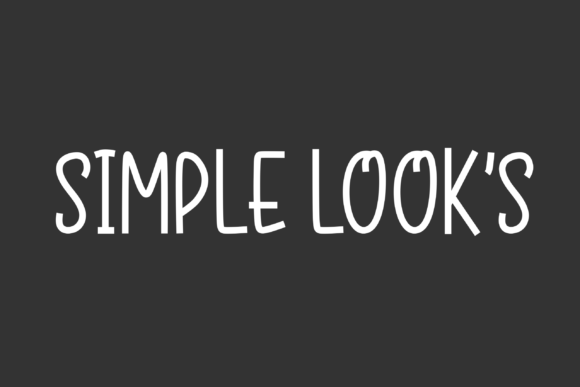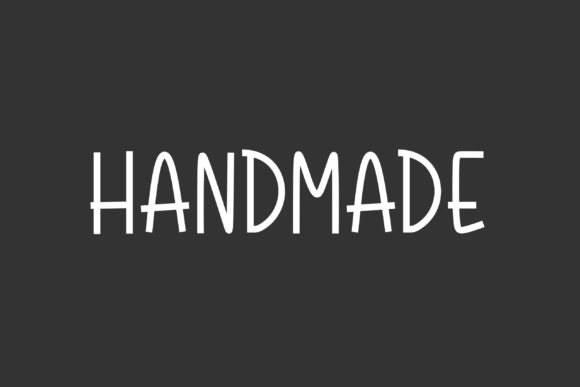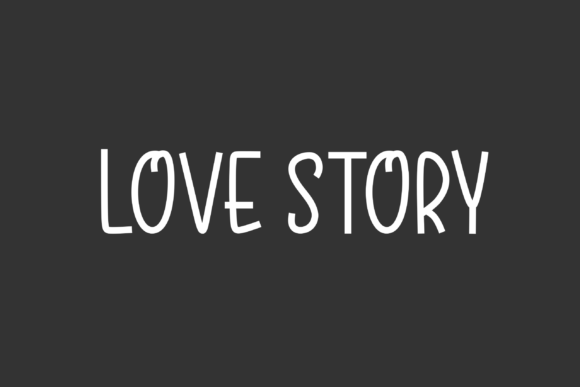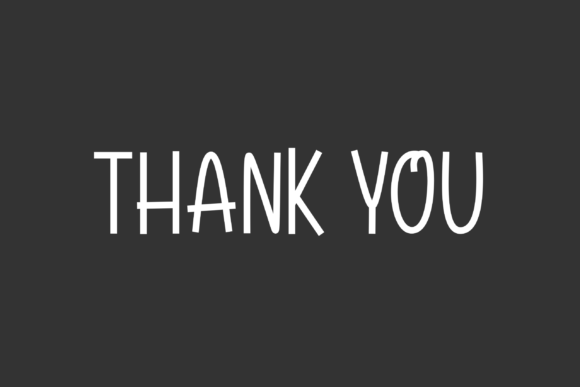
Introducing Handwrite Font: The Charming Handwritten Companion for Designers and Crafters
Are you on the lookout for a font that adds a personal touch to your designs? Look no further than Handwrite Font, a charming handwritten font that is sure to capture your heart. With its creative and well-balanced characters, Handwrite Font can easily become your favorite companion for a wide range of design projects.
The Characteristics of Handwrite Font
Handwrite Font boasts a unique and elegant handwritten style that is perfect for designers and crafters who want to add a touch of personality to their work. The font features creative and well-balanced characters that are carefully crafted to ensure that each letter, number, and symbol is aesthetically pleasing and highly legible.
One of the standout features of Handwrite Font is its versatility. Whether you’re working on a book, magazine, social media post, invitation, or any other design project, this font can adapt to any style or theme. Its smooth and flowing lines make it perfect for body text, while its elegant and refined look makes it suitable for headings and titles.
Uses of Handwrite Font
Handwrite Font is an incredibly versatile font that can be used for a wide range of design projects. Here are some ideas to get you started:
- Books and Magazines: Add a personal touch to your book or magazine with Handwrite Font. Its elegant and refined look makes it perfect for titles, headings, and body text.
- Social Media Posts: Stand out on social media with Handwrite Font. Its creative and well-balanced characters make it perfect for creating eye-catching posts that grab attention.
- Invitations: Create beautiful and elegant invitations with Handwrite Font. Its smooth and flowing lines make it perfect for formal and informal events.
- Crafting and DIY Projects: Add a personal touch to your crafting and DIY projects with Handwrite Font. Its charming and whimsical look makes it perfect for journaling, scrapbooking, and other paper crafts.
Benefits of Using Handwrite Font
There are many benefits to using Handwrite Font in your design projects. Here are a few:
- Unique and Personalized Look: Handwrite Font adds a unique and personalized touch to your designs, setting them apart from others.
- Highly Legible: The font’s creative and well-balanced characters ensure that your text is highly legible, even at small sizes.
- Versatile: Handwrite Font can be used for a wide range of design projects, from books and magazines to social media posts and invitations.
- Elegant and Refined: The font’s smooth and flowing lines make it perfect for formal and informal designs.
Tips for Using Handwrite Font
Here are some tips for getting the most out of Handwrite Font:
- Experiment with Different Sizes: Handwrite Font looks great at a range of sizes, from small body text to large headings.
- Pair with Other Fonts: Try pairing Handwrite Font with other fonts to create a unique and eye-catching look.
- Use for Headings and Titles: Handwrite Font’s elegant and refined look makes it perfect for headings and titles.
- Add a Personal Touch: Use Handwrite Font to add a personal touch to your designs, whether it’s a journal entry or a social media post.
In conclusion, Handwrite Font is a charming handwritten font that is perfect for designers and crafters who want to add a personal touch to their work. Its creative and well-balanced characters, versatility, and elegant look make it a great addition to any design project. Whether you’re working on a book, magazine, social media post, or invitation, Handwrite Font is sure to become your new favorite companion.